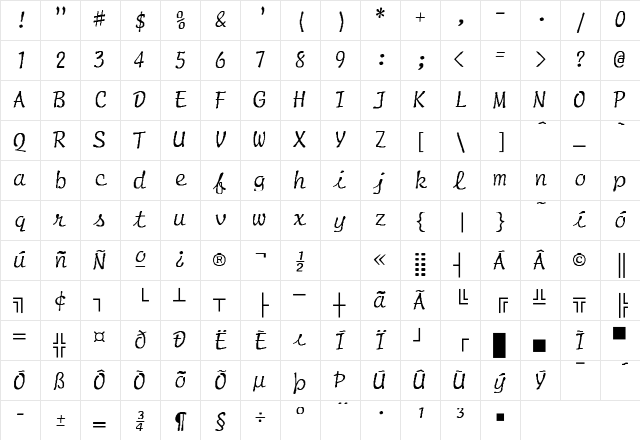
Script-Normal-Italic Regular
Complete Script-Normal-Italic Regular glyph index. Displaying only characters natively supported by Script-Normal-Italic Regular font.
Design Context for Script-Normal-Italic
Script-Normal-Italic flows with the natural rhythm of handwritten lettering, making it ideal for designs that call for warmth and personal expression.
Font Pairing: Combine Script-Normal-Italic with a simple geometric sans for maximum contrast - the tension between flowing curves and clean structure is a classic typographic pairing.
Pro Tip: Use Script-Normal-Italic for short runs of text - names, titles, or taglines. Extended body copy in script faces tires the eye quickly.